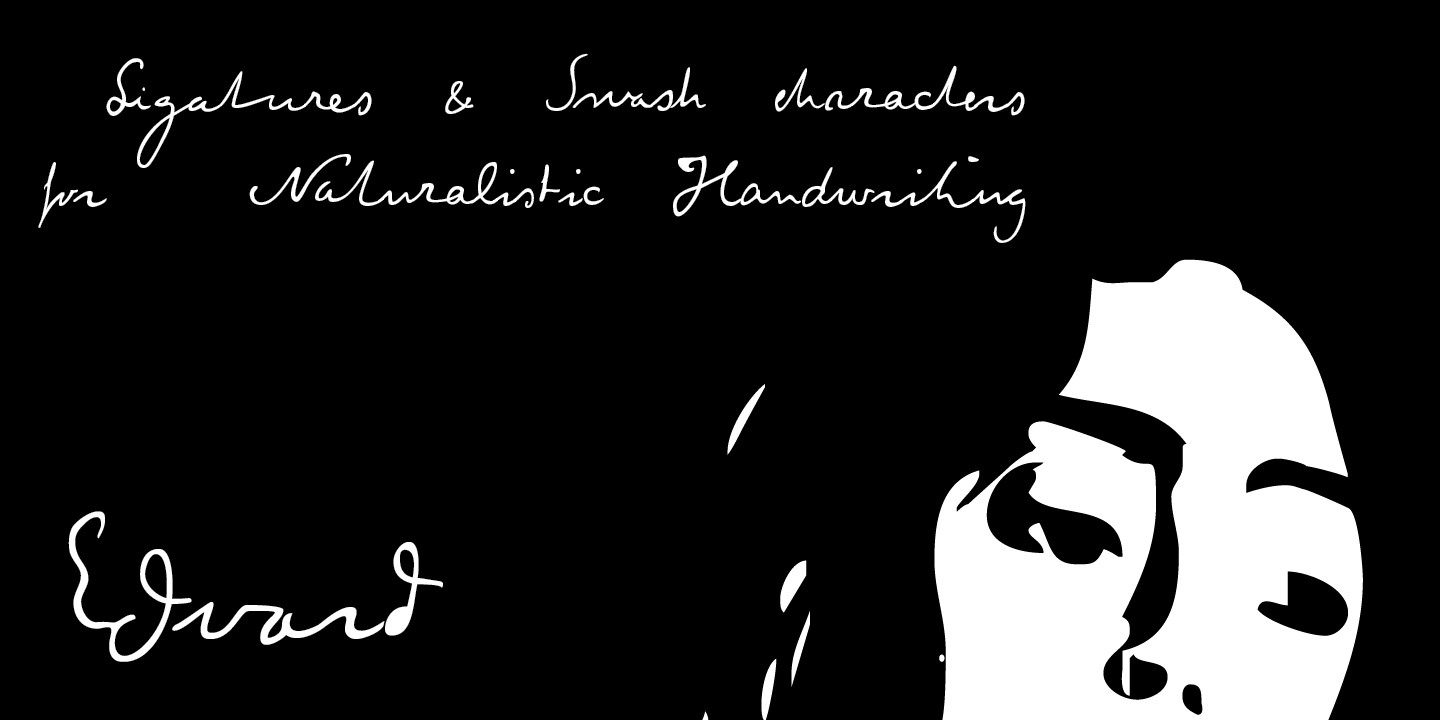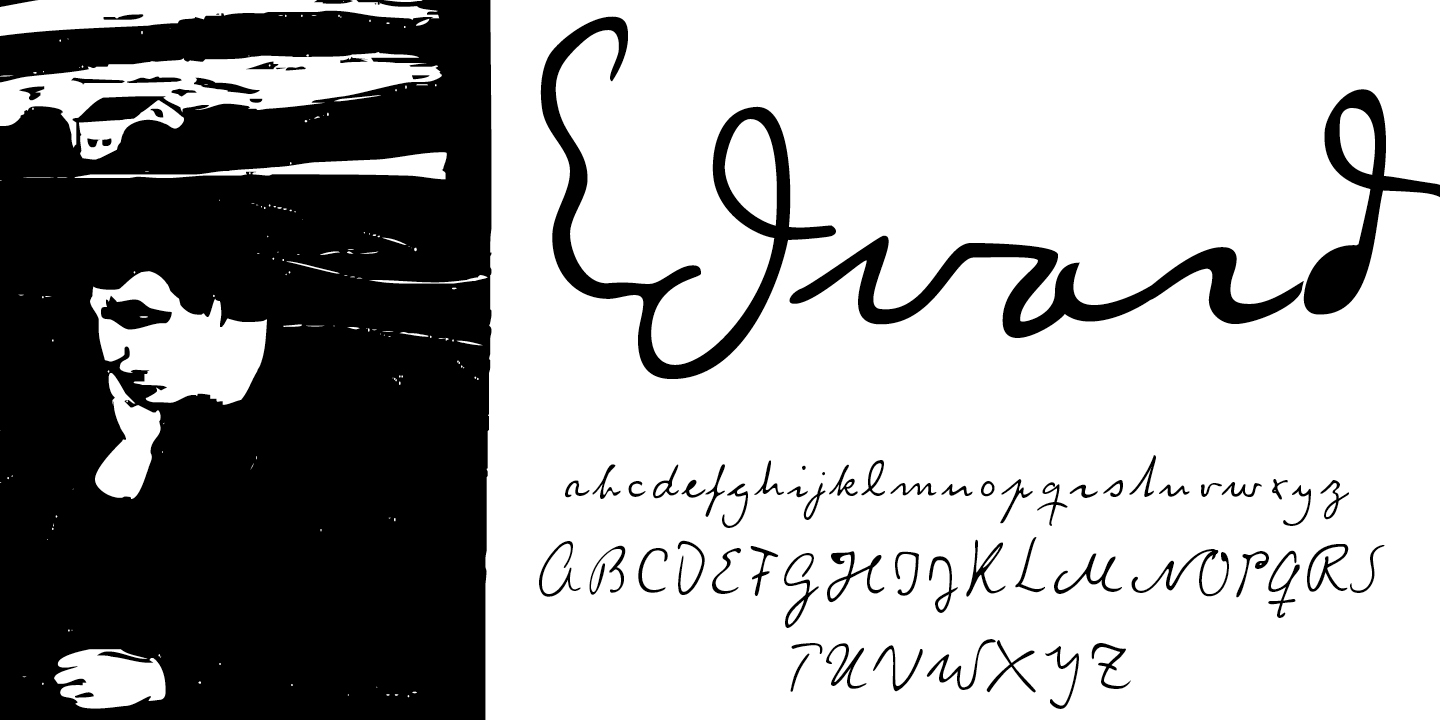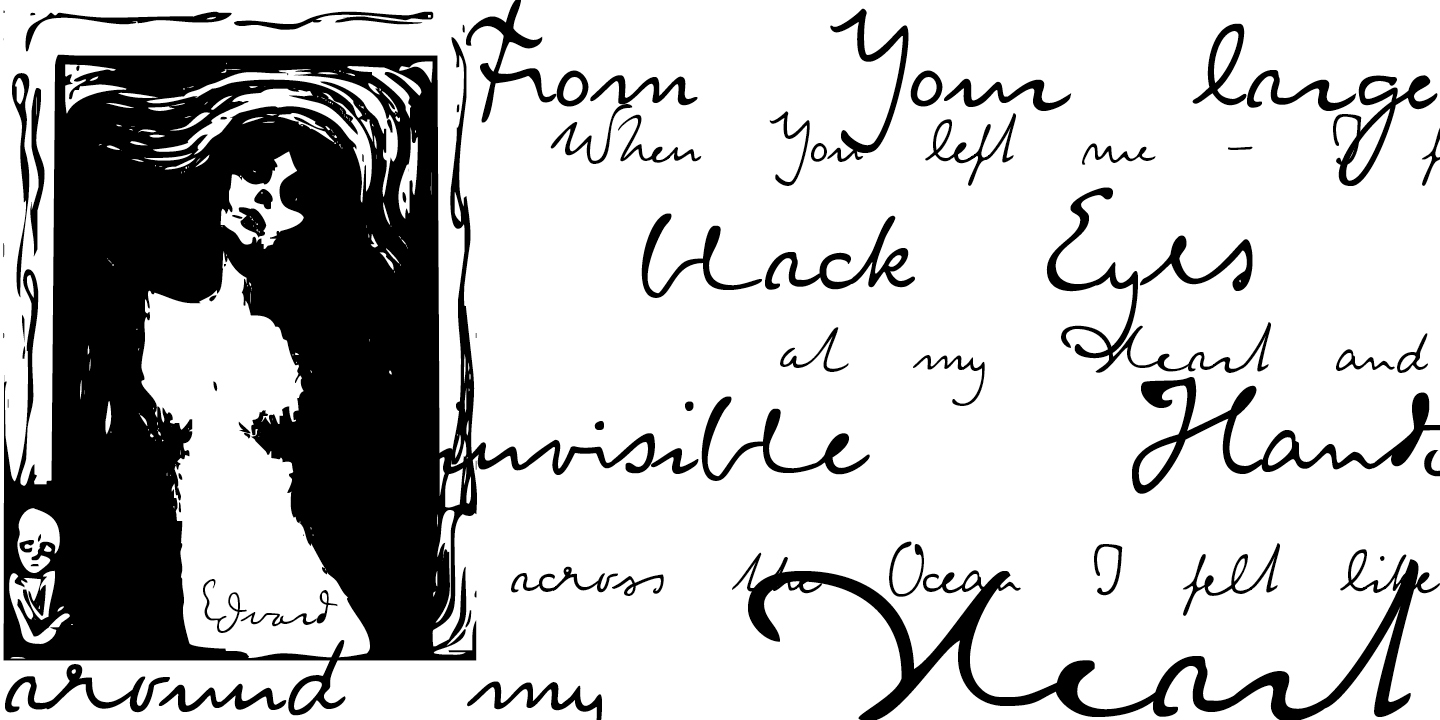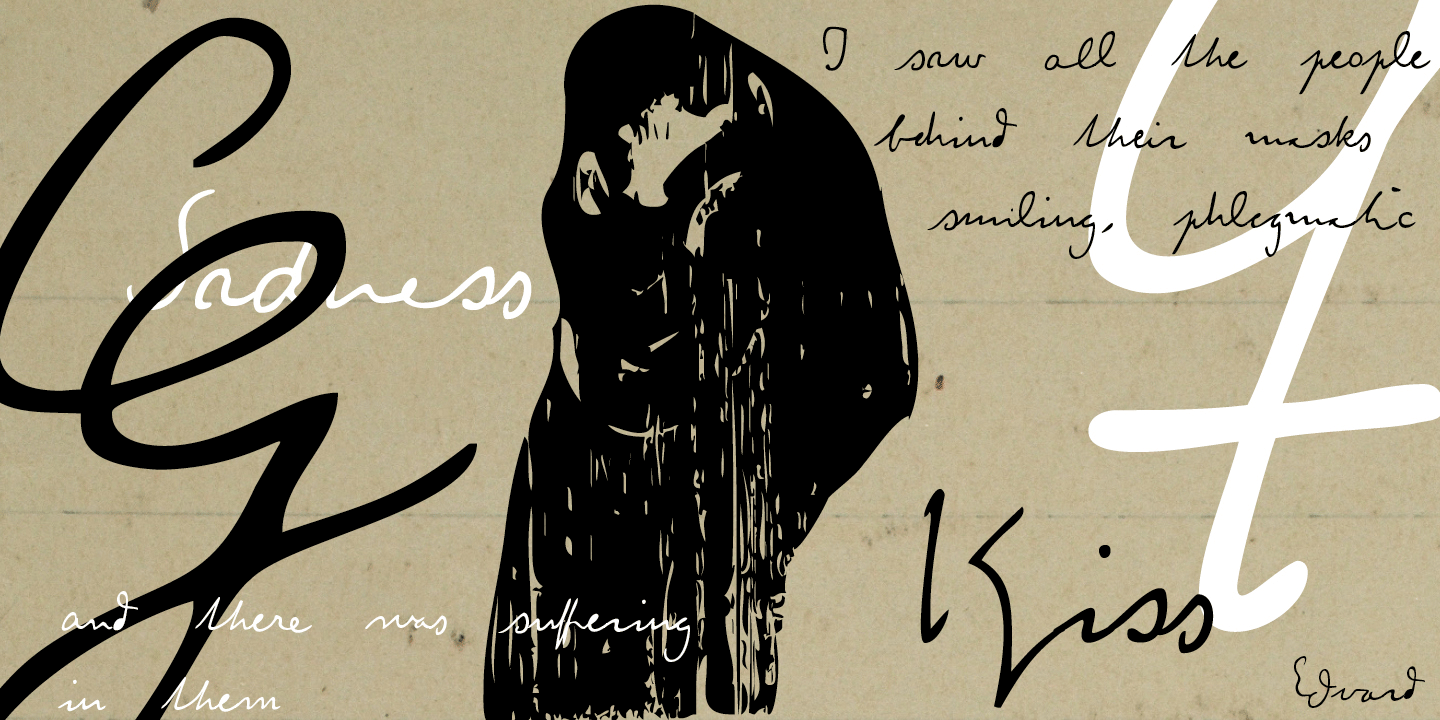
About Edvard
This font is based on the handwriting of Norwegian painter Edvard Munch. Using his many letters, drafts, note- and sketchbooks as reference, this font characterizes the elegant yet sometimes quite irregular writing style Munch had. To resemble naturalistic…